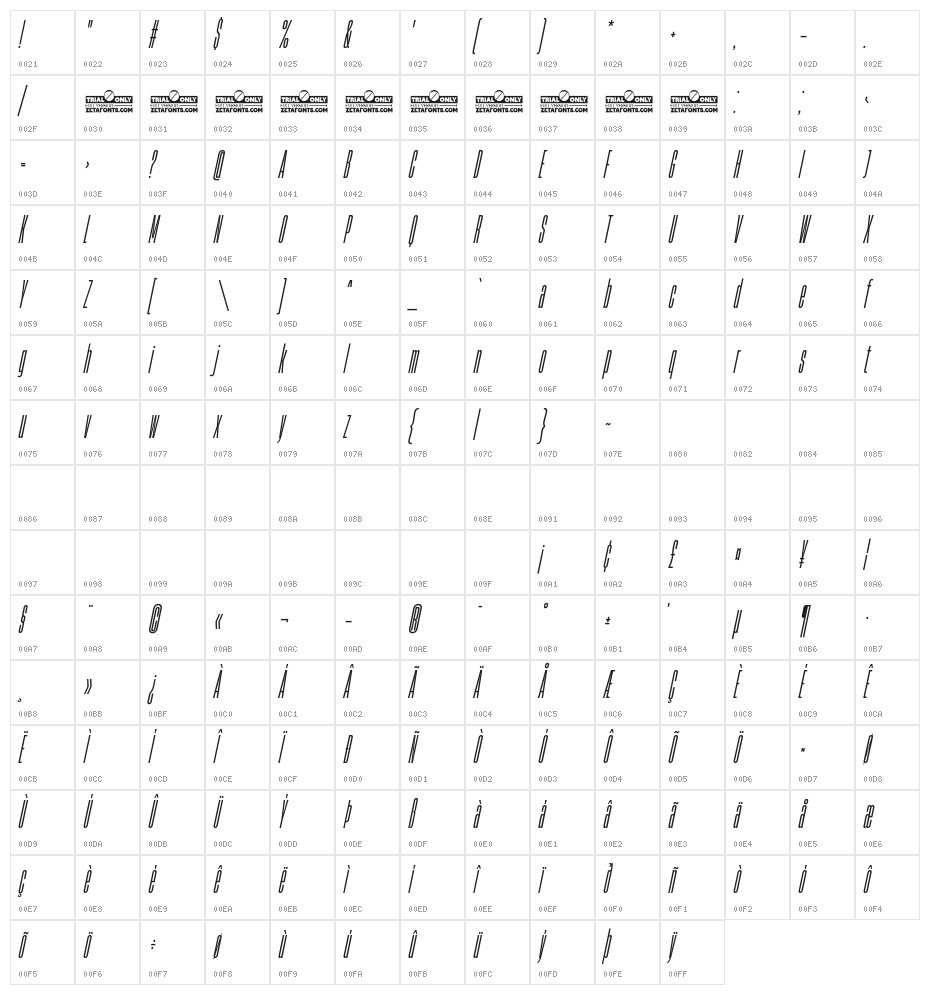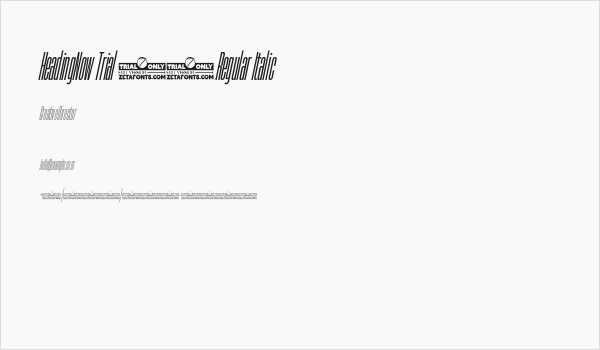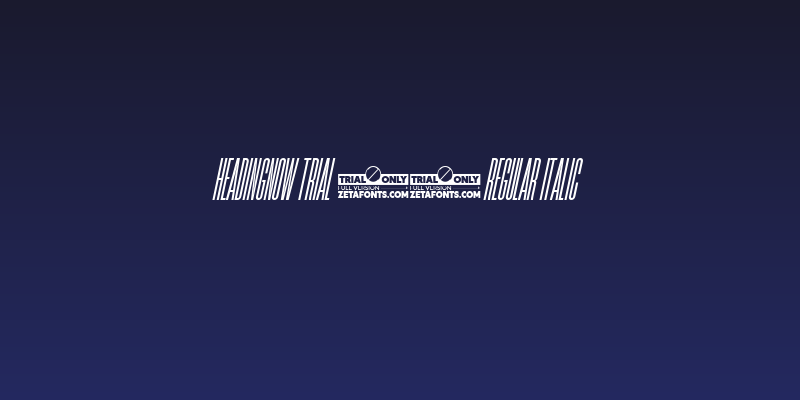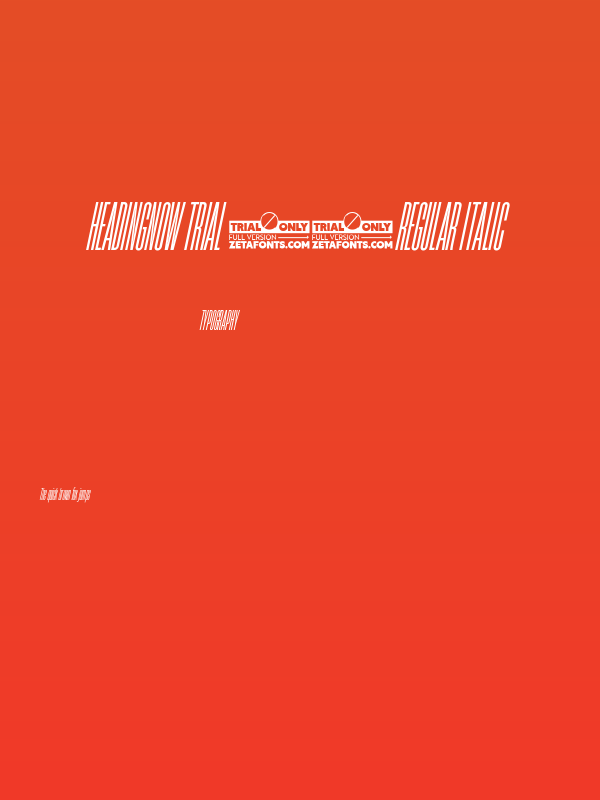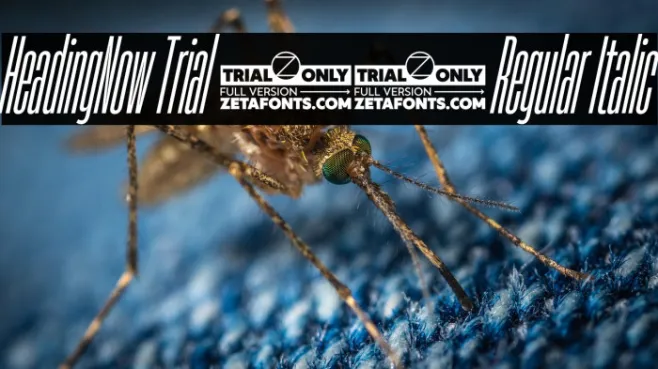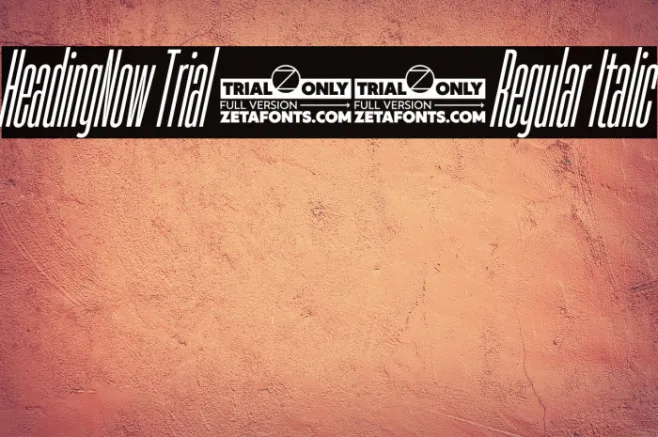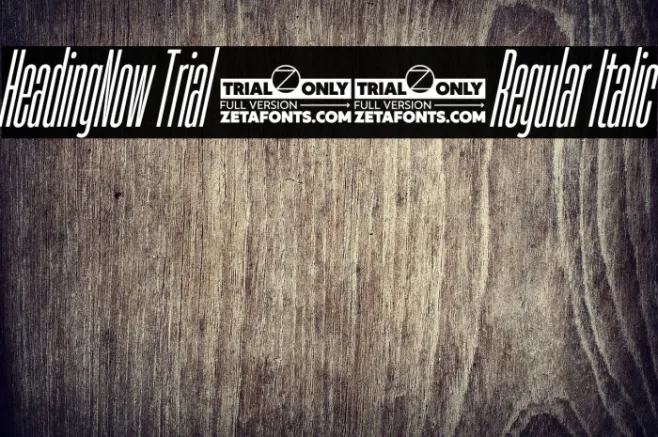
HeadingNow Trial 04 Regular Italic Font
HeadingNow Trial 04 Regular Italic Description
This font exhibits a sleek and modern aesthetic with a distinct italic slant, giving it a dynamic and forward-moving appearance. The characters are elongated and narrow, contributing to a condensed width that enhances its contemporary style. The strokes are consistent in thickness, providing a medium contrast that balances readability with visual interest. The uppercase and lowercase letters maintain a uniform design, ensuring cohesion across different text sizes. Special characters are seamlessly integrated, maintaining the font's overall sleekness. This font is ideal for projects that require a modern and stylish touch, such as branding, advertising, and editorial design.